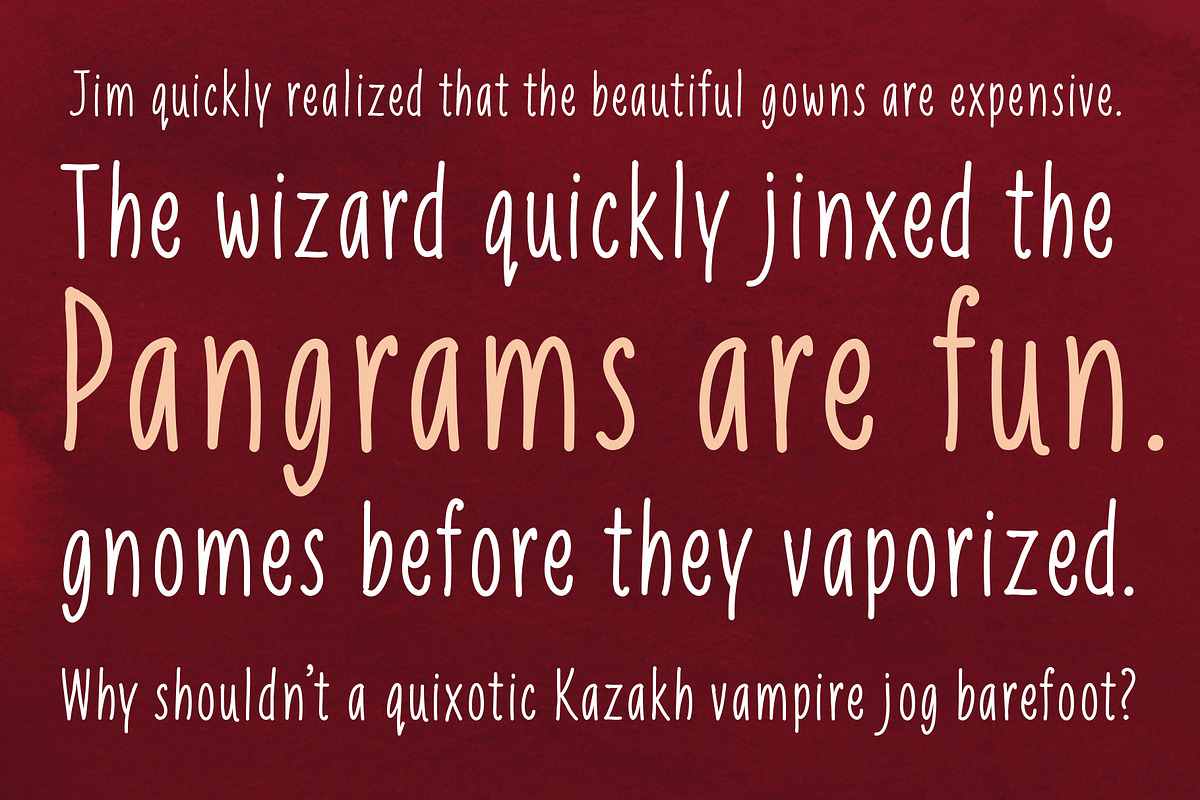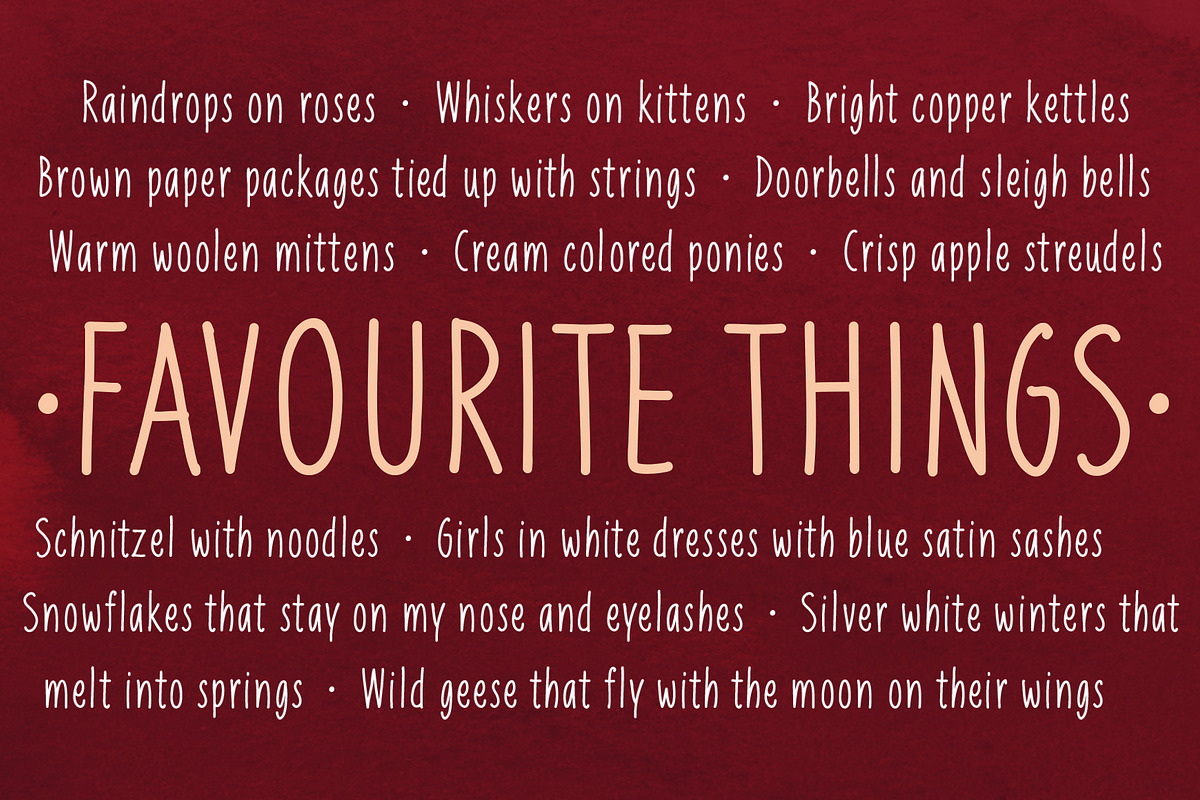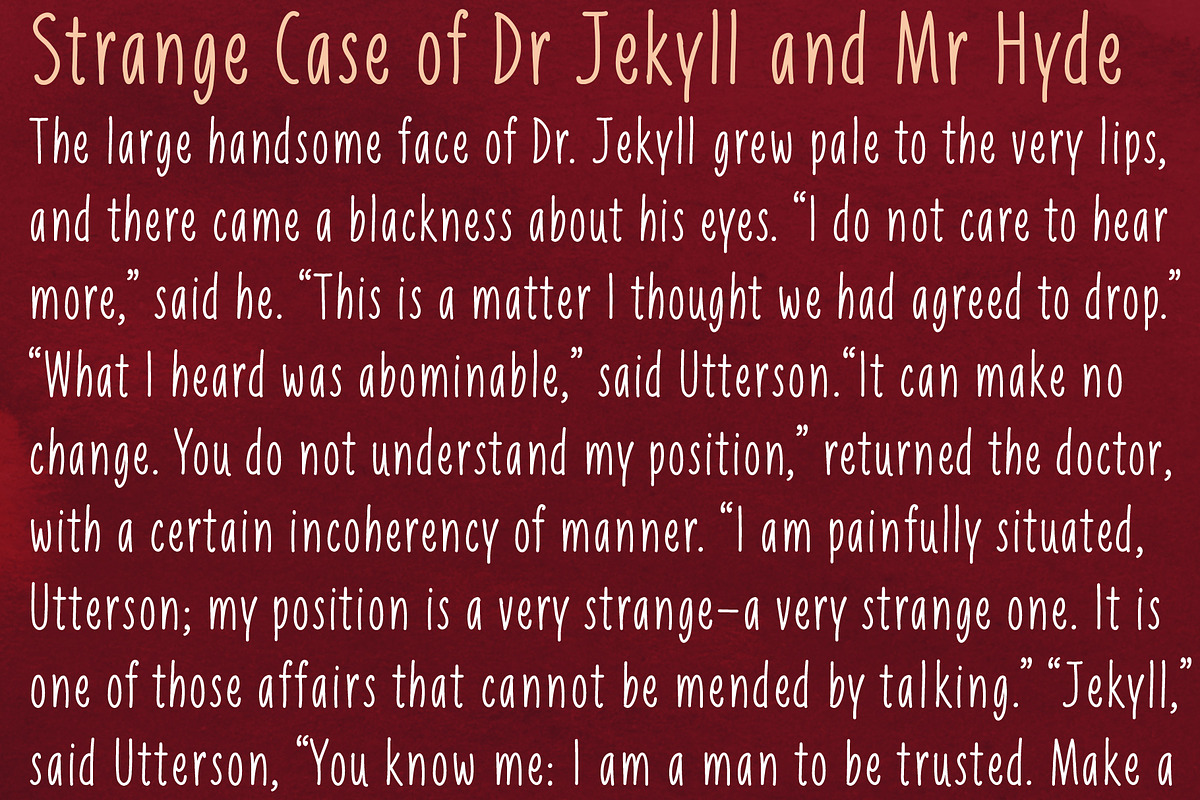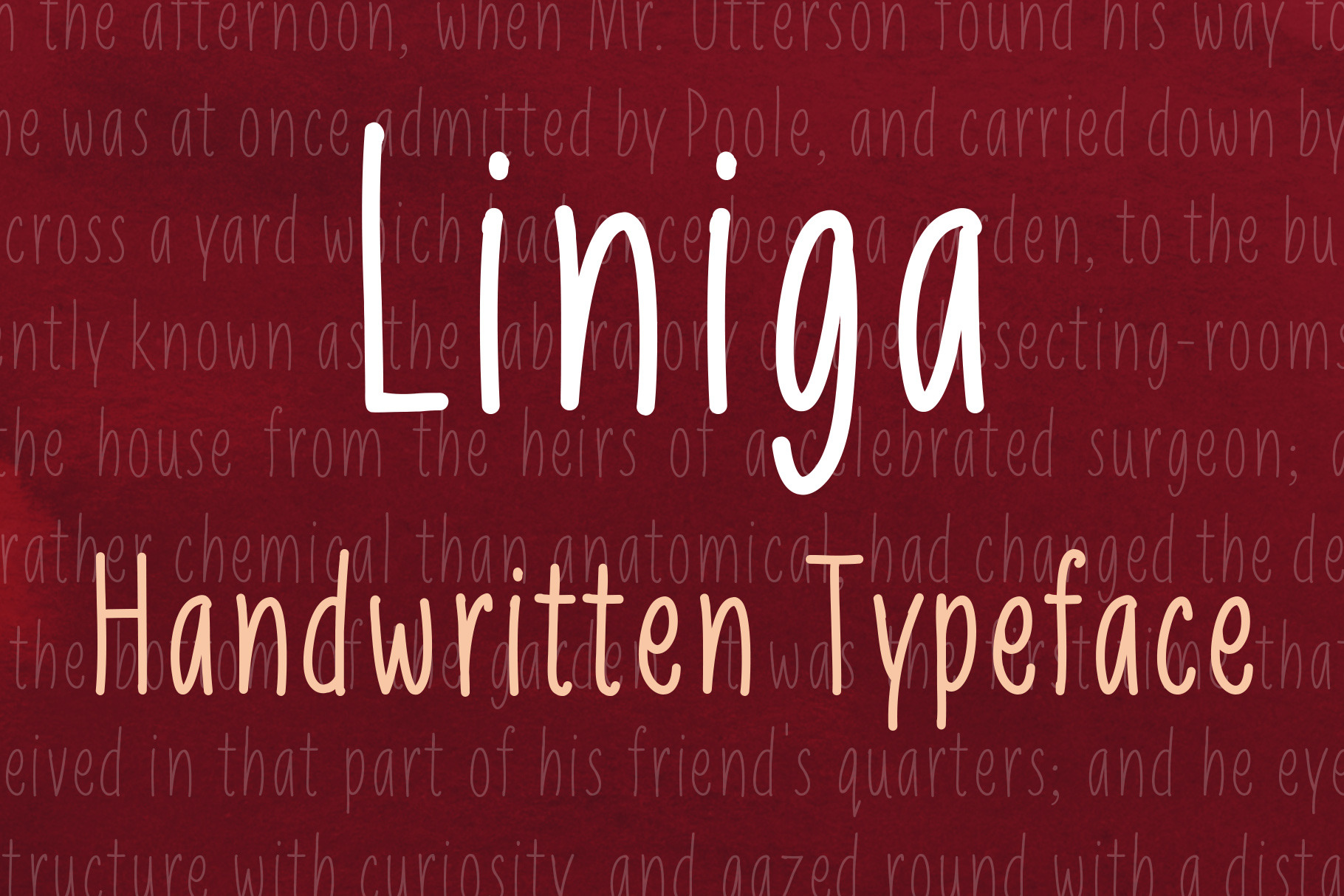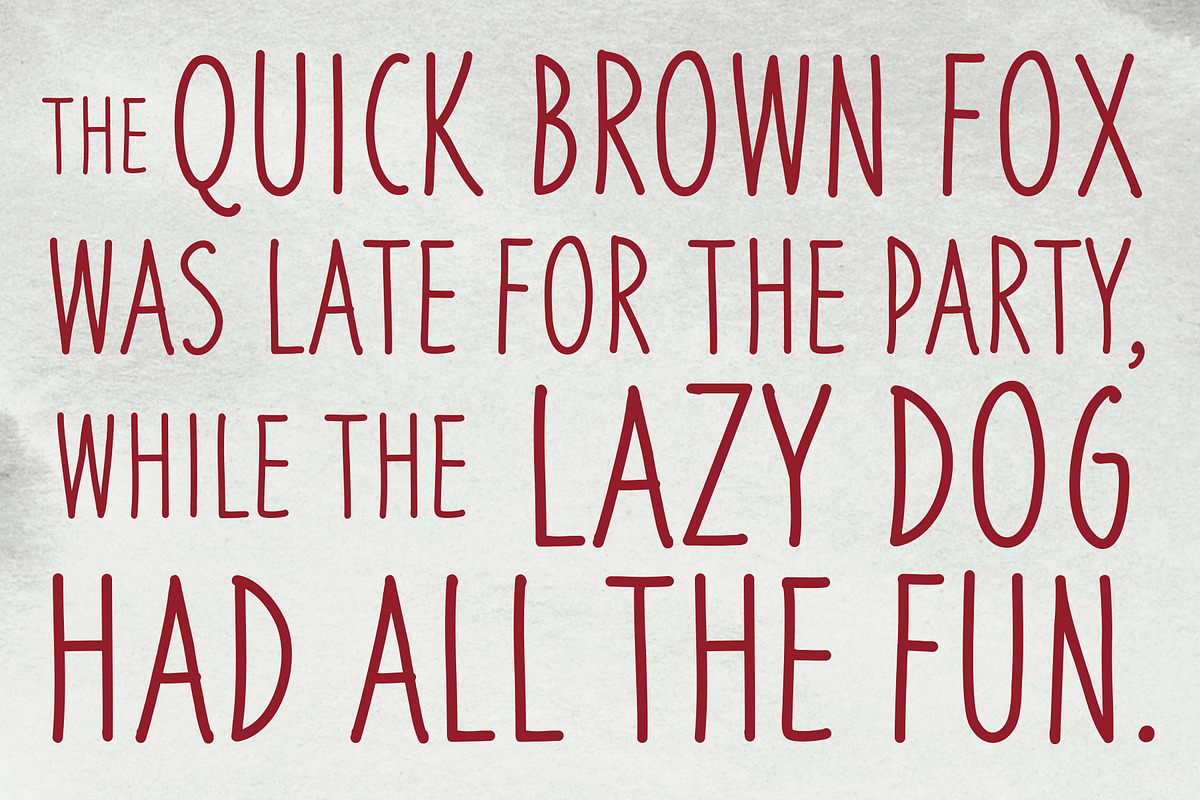
Liniga Font
A tall, warm and friendly handwritten typeface with a simple structure and low contrast. Works well for both display and body text. It has a serif version as well, called Liniga Serif.